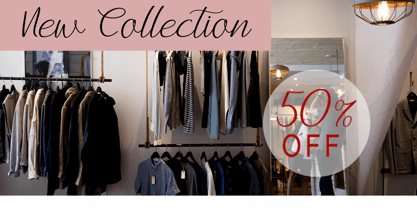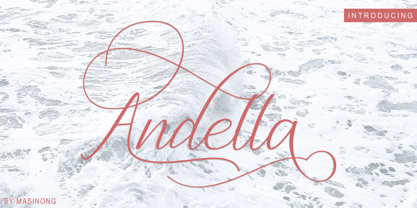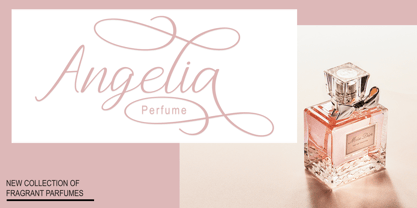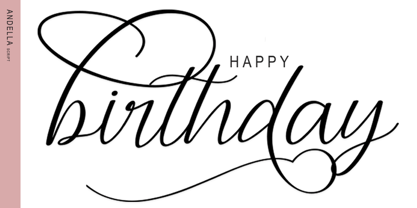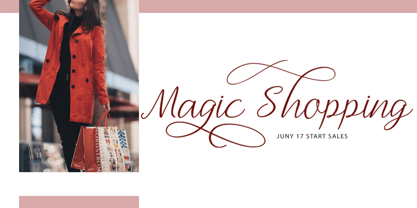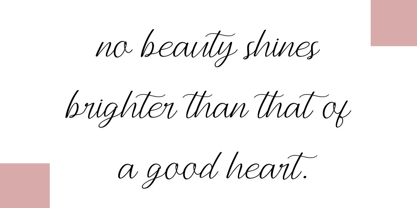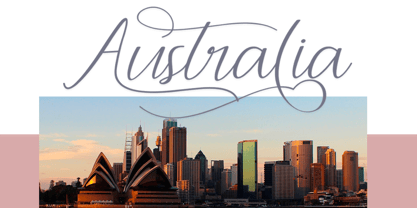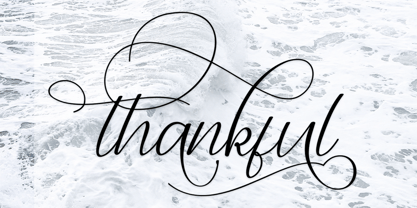
Andella
par Masinong Studio
La famille de polices Andella a été conçue par Fajriadi et publiée par Masinong Studio. Andella contient 1 styles. En savoir plus sur cette famille
Introducing Andella Script modern script with a handmade calligraphy style, decorative characters and a dancing baseline! So beautiful on invitation like greeting cards, branding materials, business cards, quotes, posters, and more!! Andella Script come with 461+ glyphs. The alternative characters were divided into several Open Type features such as Swash, Stylistic Sets, Stylistic Alternates, and Ligature. The Open Type features can be accessed by using Open Type savvy programs such as Adobe Illustrator, Adobe InDesign, Adobe Photoshop Corel Draw X version, And Microsoft Word. And this Font has given PUA unicode (specially coded fonts). so that all the alternate characters can easily be accessed in full by a craftsman or designer.